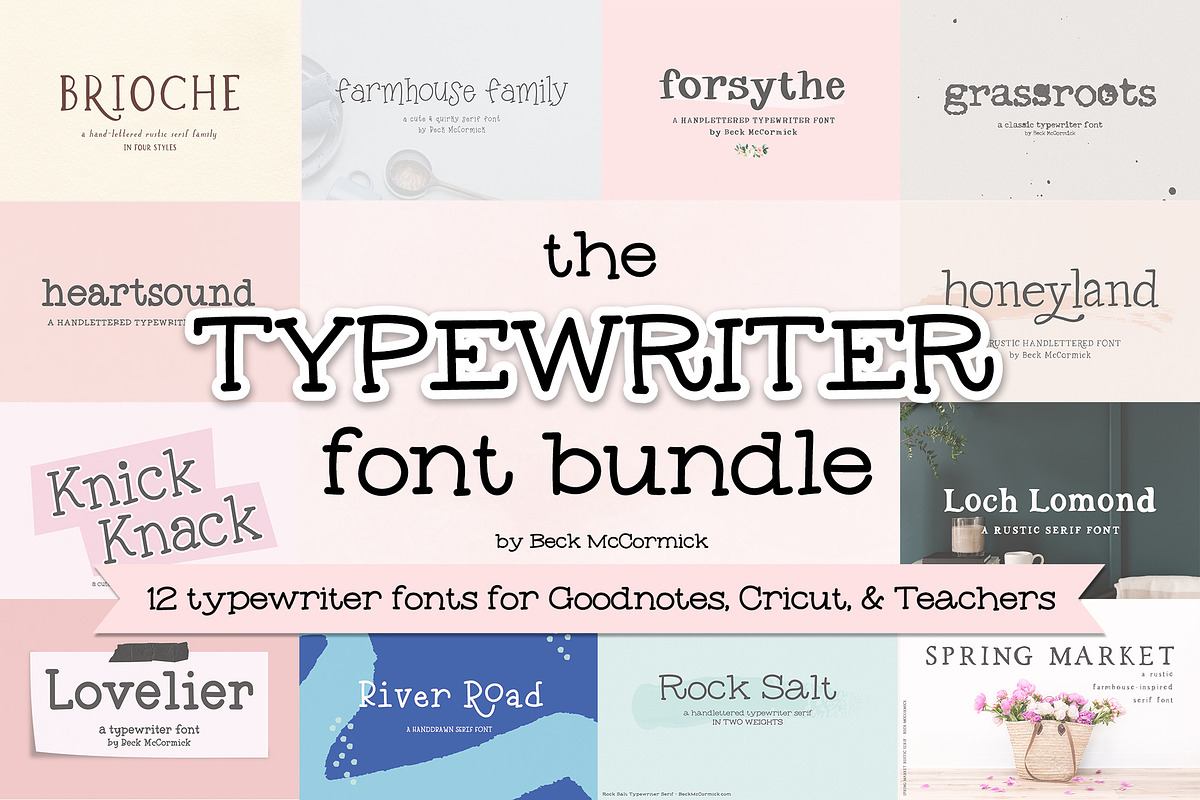
Typewriter Font Bundle Free Download is a nostalgic collection of vintage-inspired typefaces that capture the classic look and feel of old-school typewriters. Ideal for retro-themed designs, stationery, book covers, and digital scrapbooking, this bundle offers a variety of textures and styles—from clean and crisp to rough and distressed.
Each font in the bundle is crafted to bring authenticity and character to your projects. Whether you're designing a historical novel layout or creating branding with a timeless aesthetic, the Typewriter Font Bundle delivers charm, legibility, and personality.